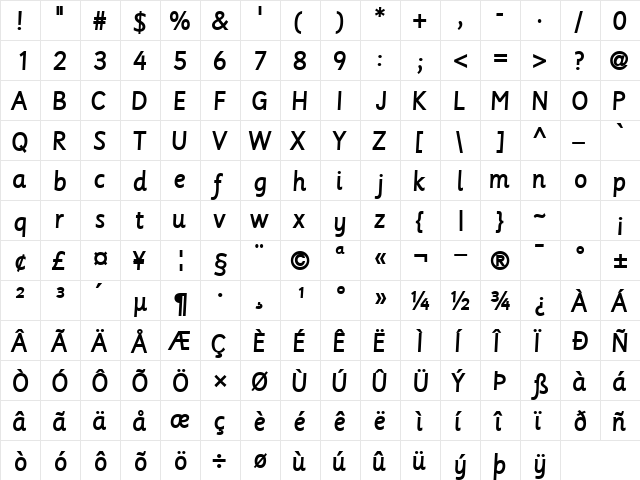
UpstartSSK Bold
Design Context for UpstartSSK Typeface
UpstartSSK takes a measured approach to typography — its balanced proportions and neutral character make it a reliable workhorse for both digital and print work. The heavy weight commands attention and anchors typographic hierarchies.